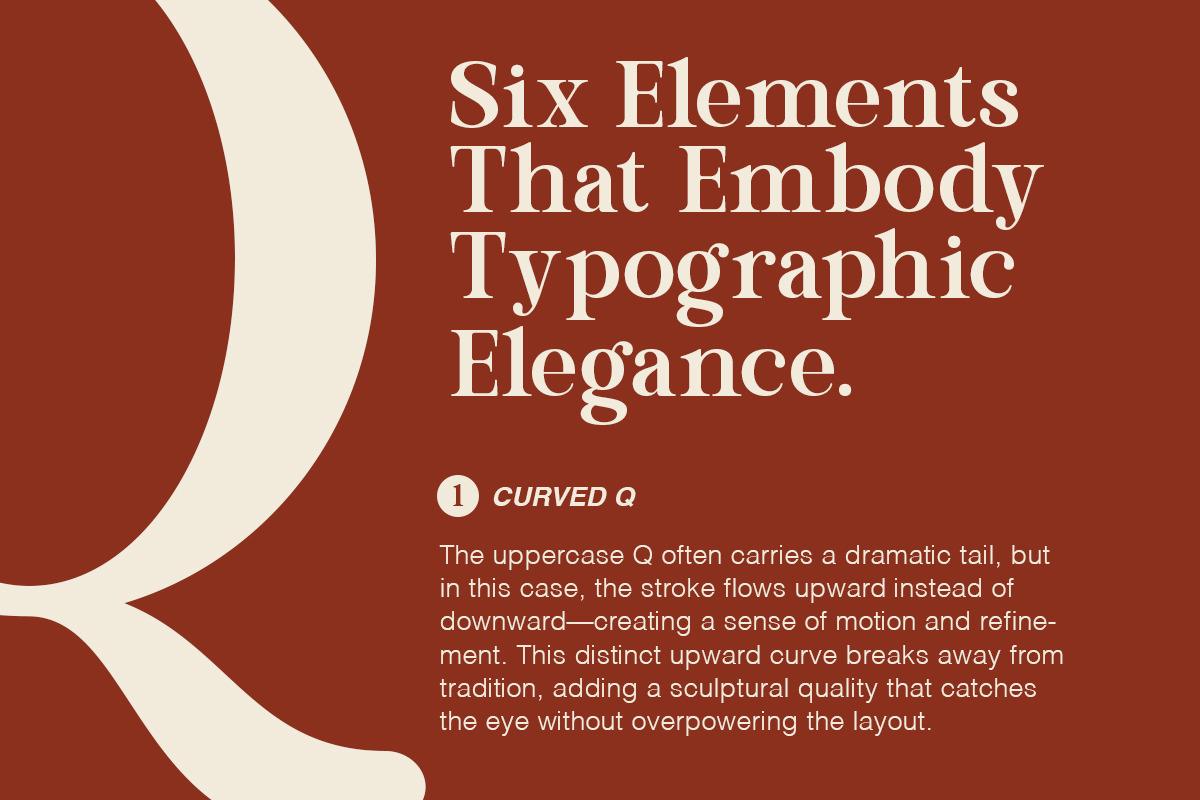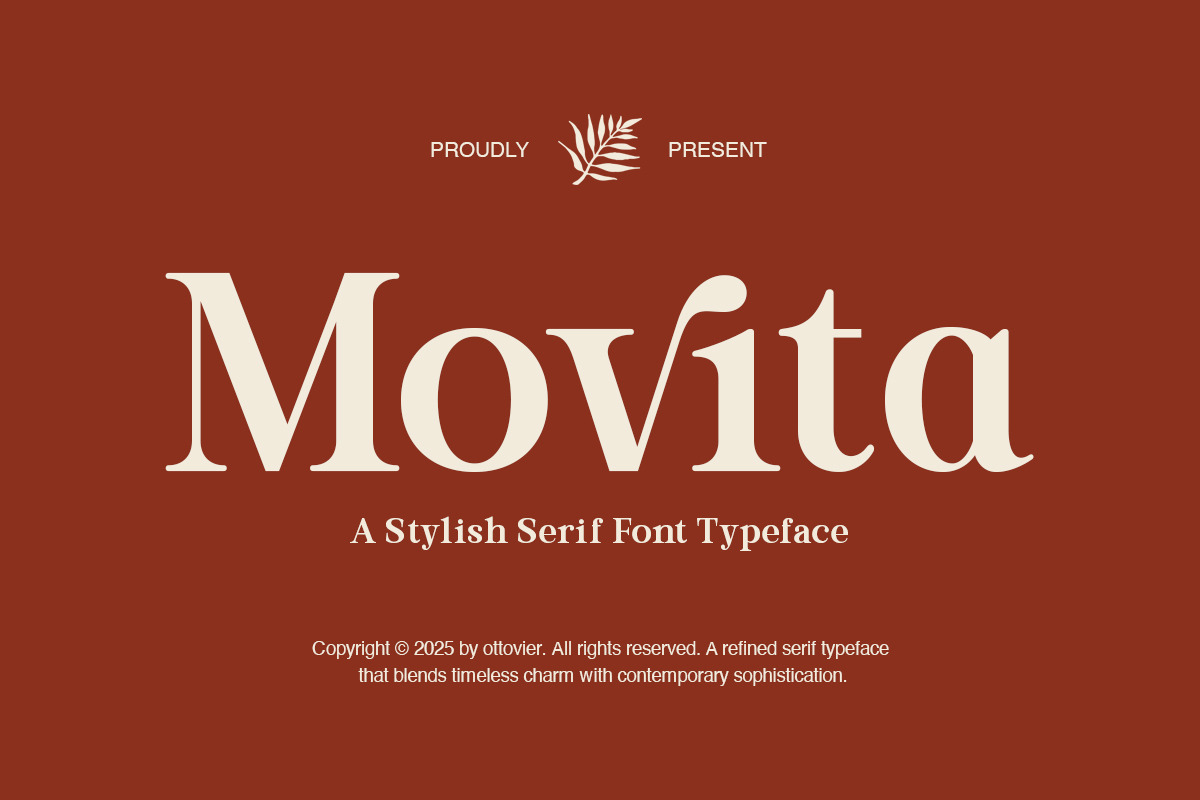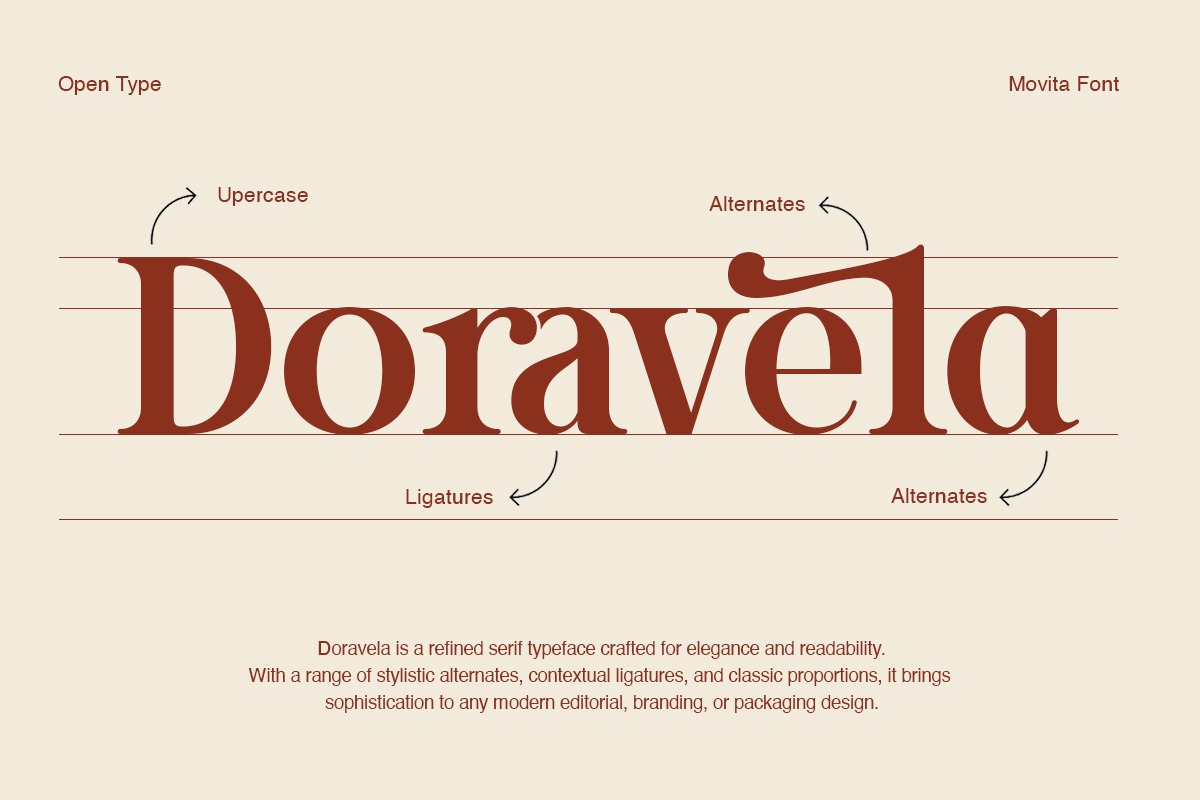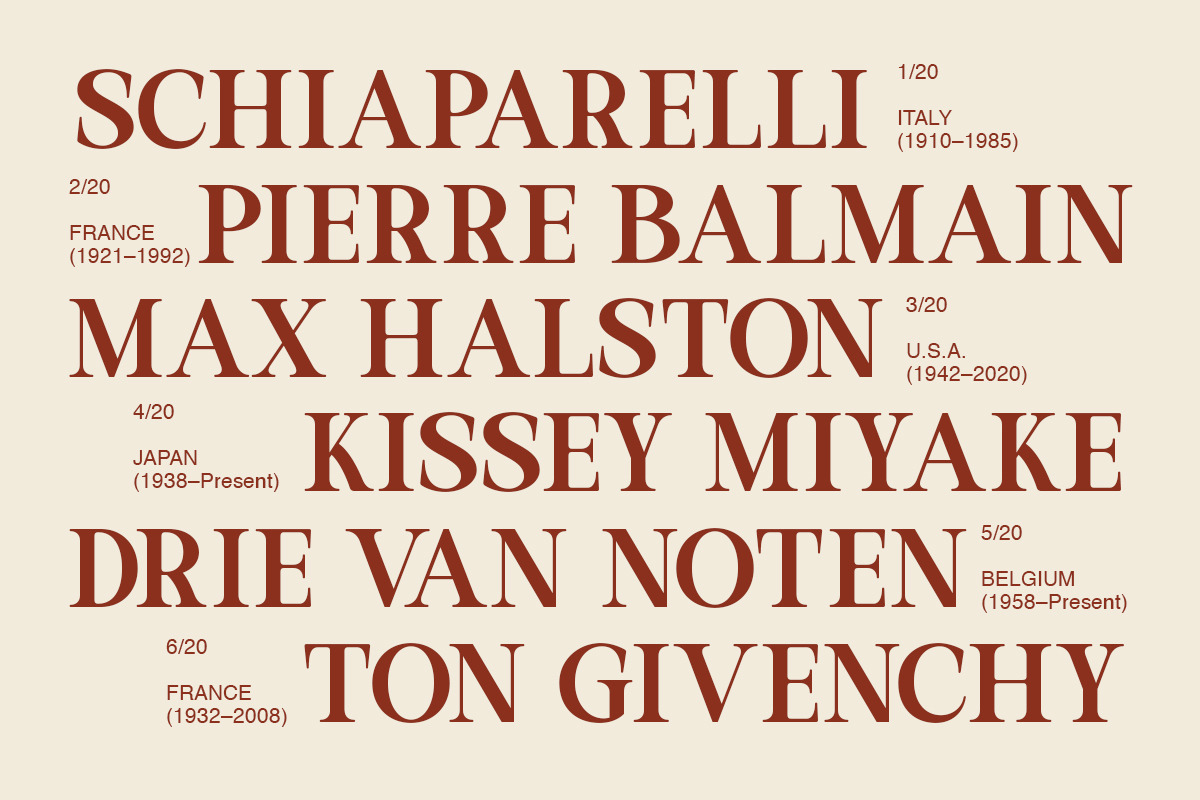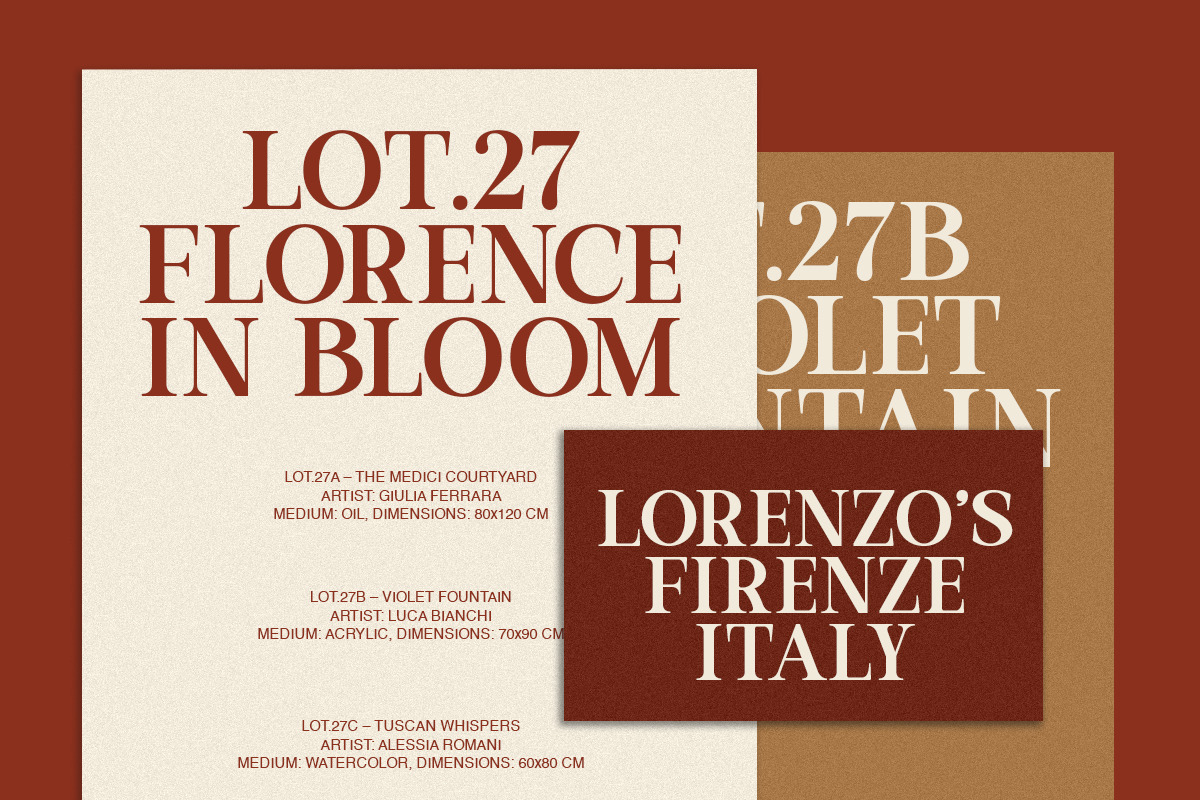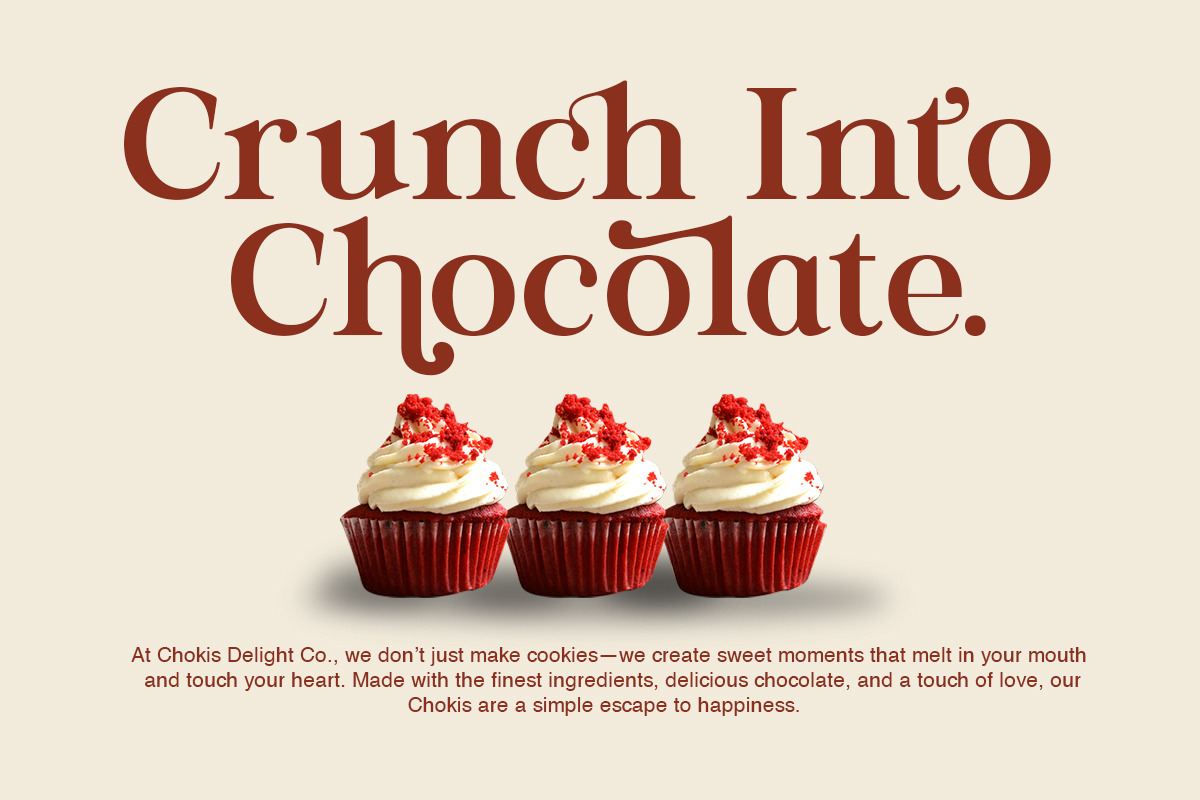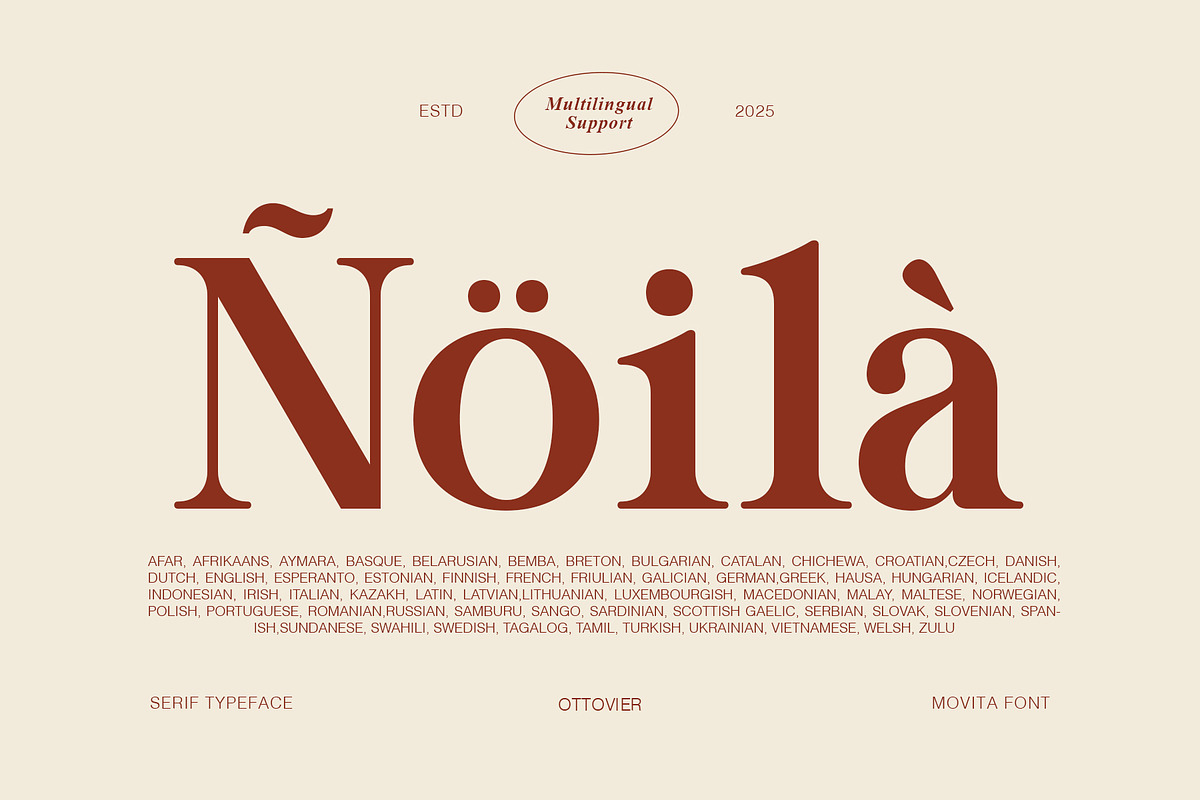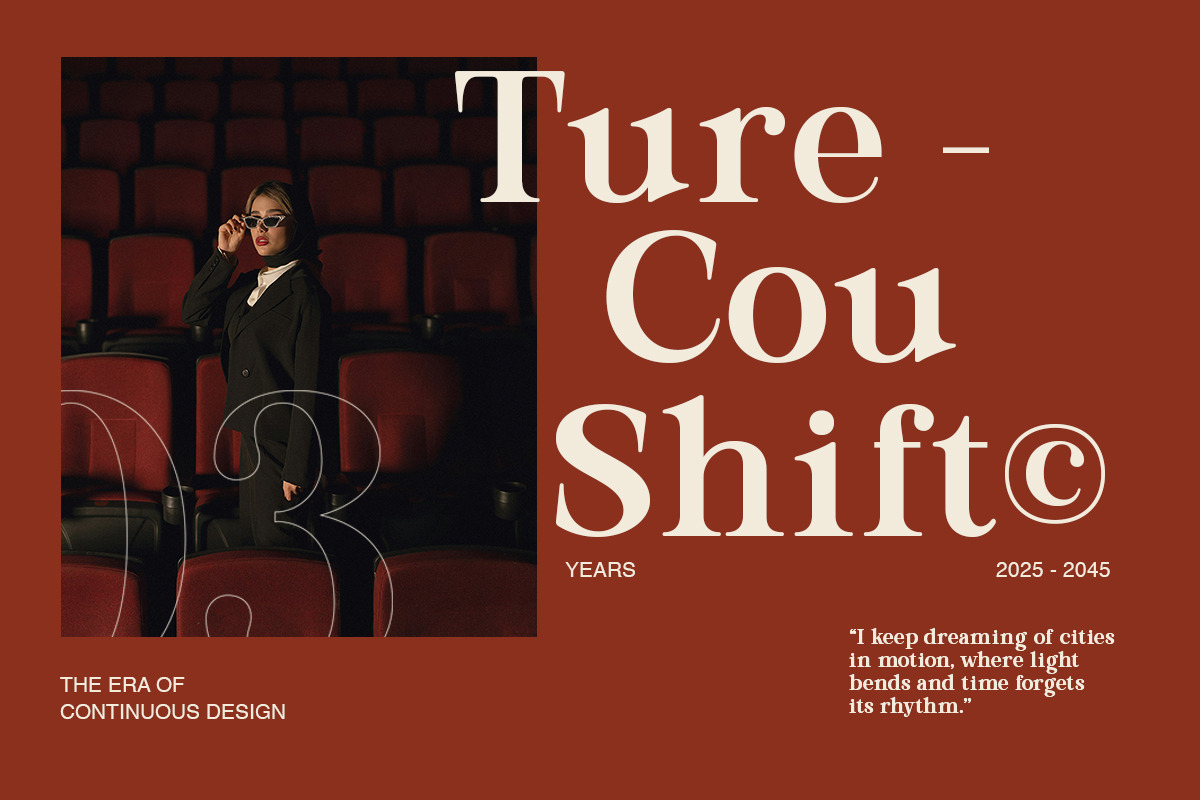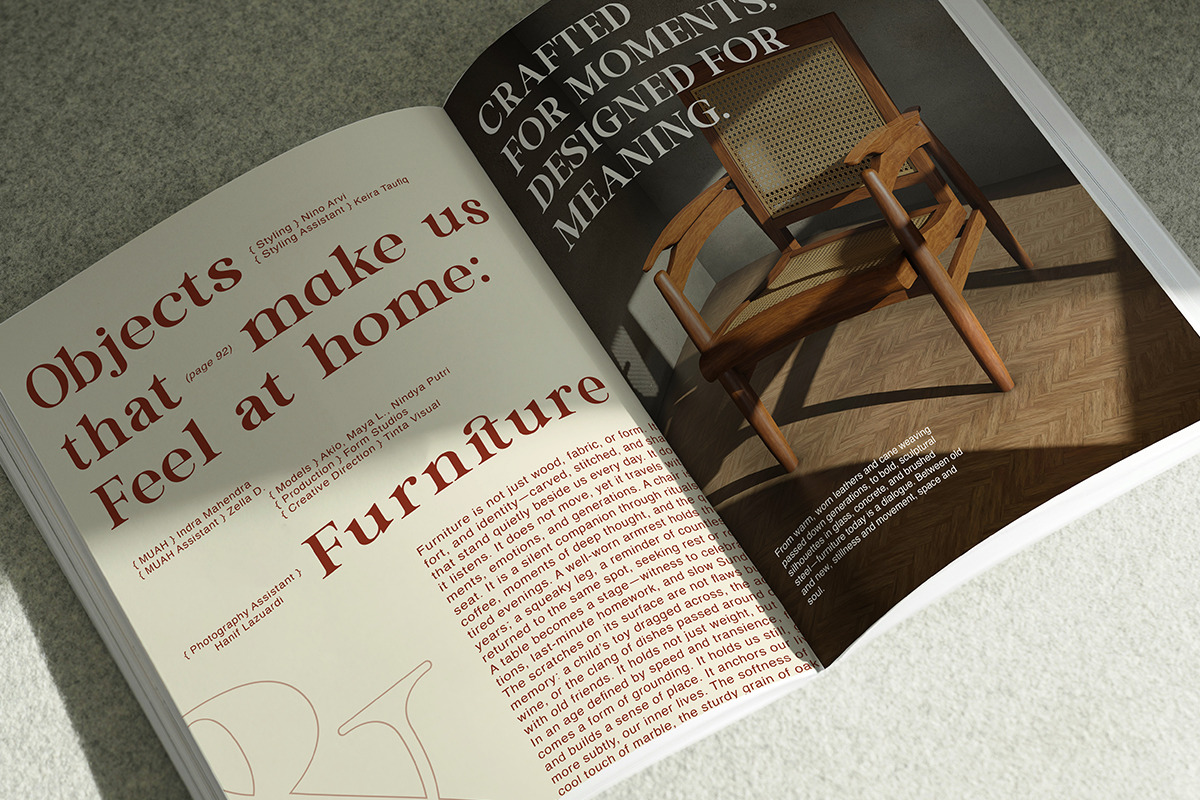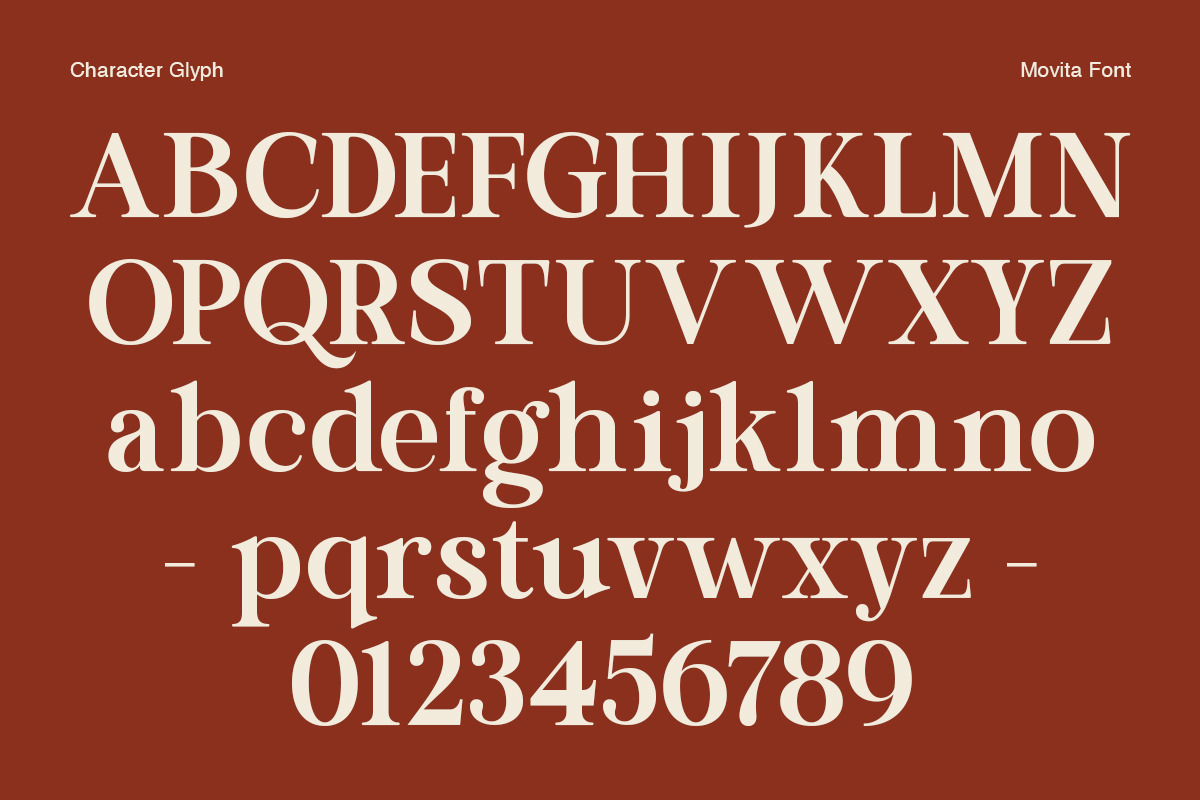
Movita Stylish Font Typeface
This typeface is perfect for designers who want to create premium-looking visuals without sacrificing readability. Its elegant structure and smooth contrast make Movita ideal for both display and editorial use — delivering strong presence while maintaining refined character. Whether you're working on luxury branding, magazine layouts, wedding invitations, fashion campaigns, or packaging designs, Movita provides a polished typographic voice that feels confident, stylish, and timeless.
Why Choose Movita? Movita was designed with versatility and aesthetics in mind. Every letterform is built to perform beautifully across both digital and print environments.
You can use Movita for: • Logo & Brand Identity Design • Editorial Layouts & Magazine Headlines • Wedding Invitations & Event Stationery • Fashion Lookbooks & Promotional Posters • Product Packaging & Label Design • Social Media Graphics & Web Visuals
Typeface Features: • Elegant Serif Typeface • Uppercase & Lowercase Characters • Balanced Proportions & Clean Structure • Punctuation, Symbols & Numerals Included • Multilingual Support • Display & Editorial Ready • Optimized for Print & Digital Use • Published ©2026
Movita is more than just a font — it’s a visual identity tool. Its refined personality allows your designs to communicate professionalism, luxury, and artistic taste effortlessly.
If you're looking for a serif typeface that feels stylish, modern, and timeless at the same time, Movita is the perfect choice for your next creative project. Let your typography speak with elegance.